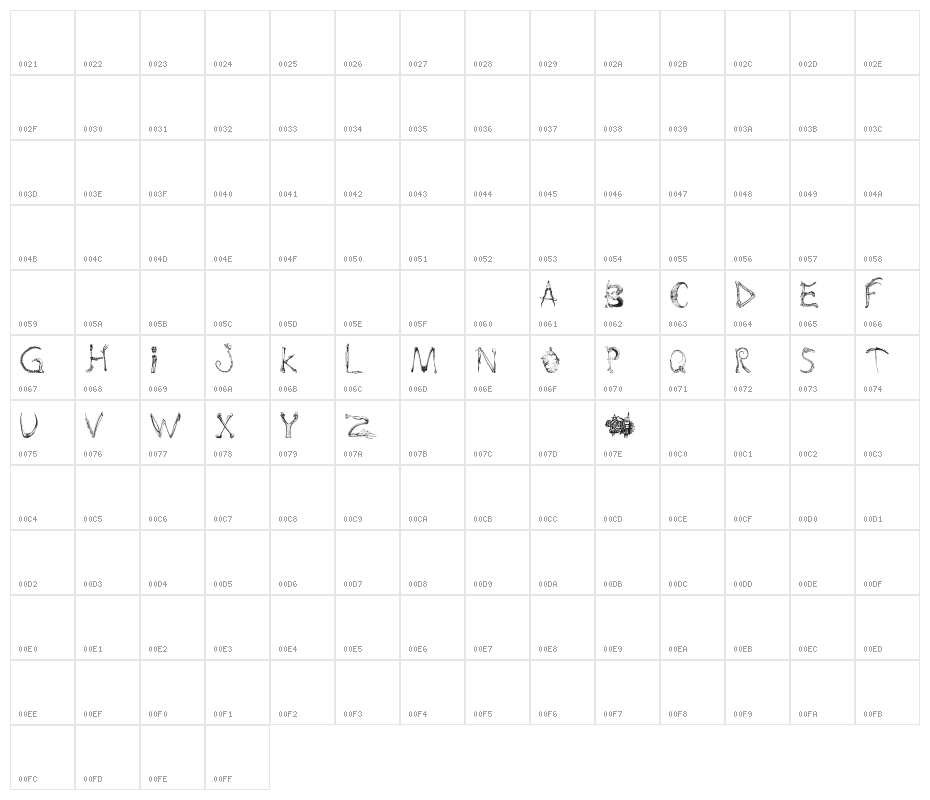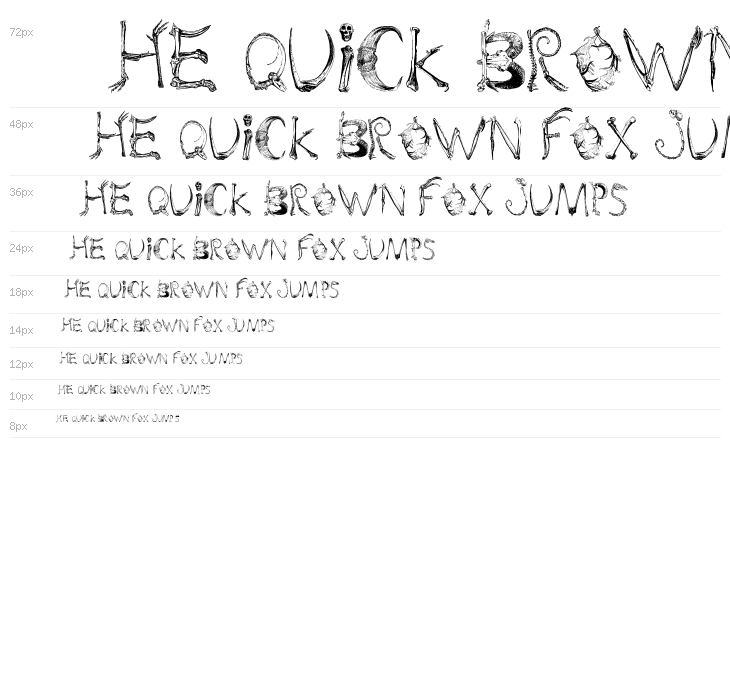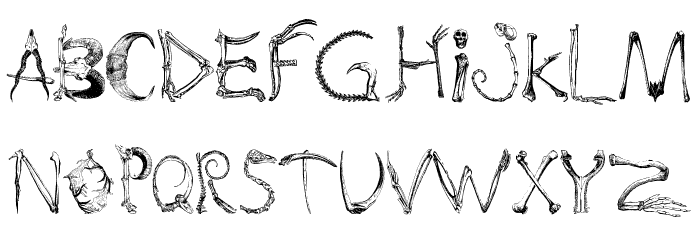
bones and chimeras Font
bones and chimeras Description
This font is a creative and intricate design that incorporates elements of bones and mythical creatures into each character. The uppercase letters are crafted with a combination of skeletal structures and fantastical elements, giving them a unique and eerie appearance. The lowercase letters continue this theme, maintaining a consistent style that blends organic and mythical motifs. The numbers and special characters are similarly designed, ensuring a cohesive look across all glyphs. This font is highly decorative, with each character resembling a piece of art, making it suitable for projects that require a distinctive and thematic touch.
| Use Case | Logos, Posters, Thematic Designs |
| Proposed Projects | Ideal for Halloween-themed designs, fantasy book covers, movie posters, and any project requiring a unique, eerie aesthetic. |